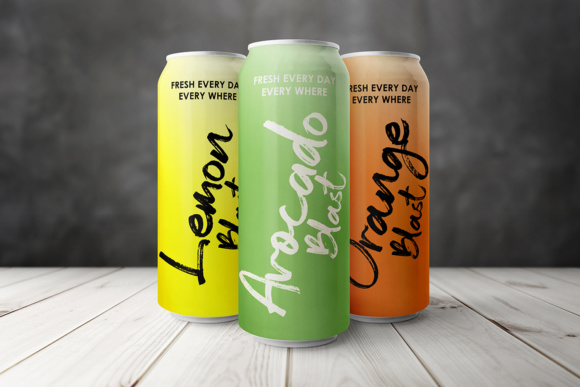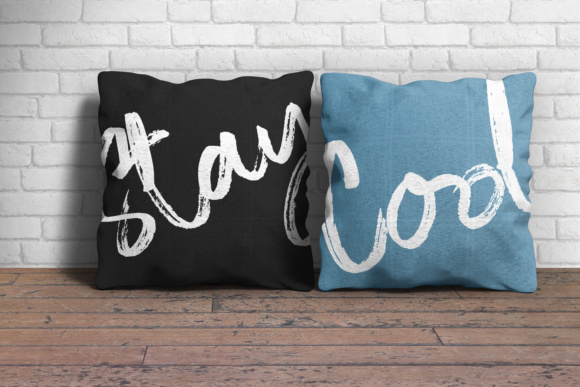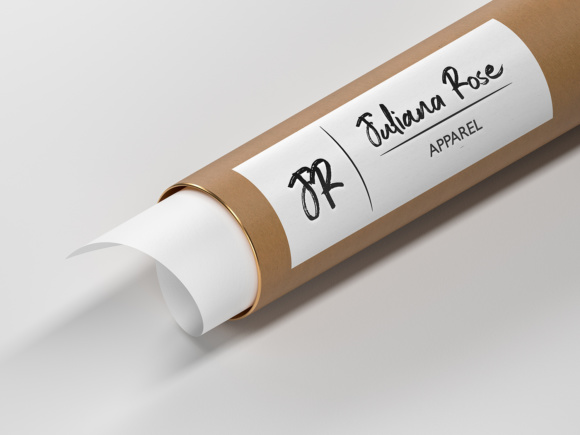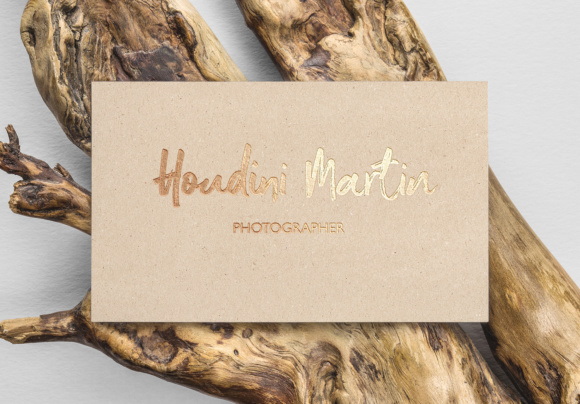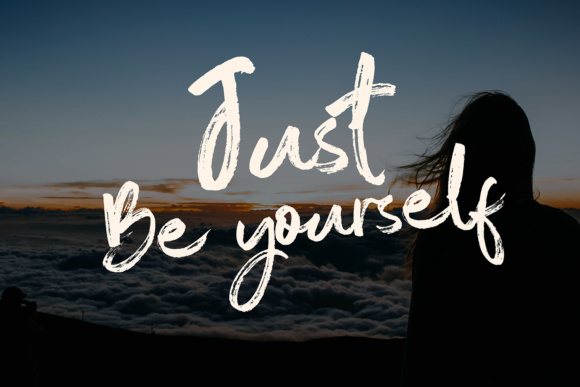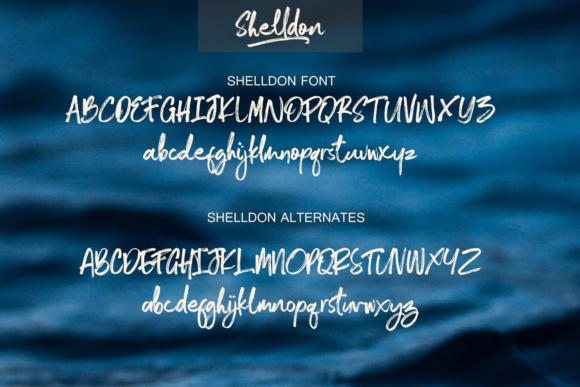
Introduction to Shelldon Font
Have you ever stared at a blank page, searching for the perfect font to bring your creative project to life? The blank page can be intimidating, but what if you had a design resource that could spark your imagination and guide you towards a unique visual identity? The Shelldon Font is a high-quality, rustic-looking handwritten font that can help you achieve that perfect look.
With its personal charm, quick dry strokes, and signature style, Shelldon Font is a valuable addition to any designer’s toolkit. Its transparent background and free download option make it an ideal choice for creative projects where flexibility is key. Whether you’re working on a branding campaign, a blog post, or a social media graphic, Shelldon Font can help you add a touch of personality to your design.
But what really sets Shelldon Font apart is its versatility. With three different fonts included – Shelldon, Shelldon Alternate, and Shelldon Swash – you have a range of options to experiment with and find the perfect fit for your project. So why settle for a generic font when you can have a unique and high-quality design resource like Shelldon Font?
Key Features of Shelldon Font
- Unique, hand-drawn design suitable for creative projects
- Includes transparent background option for seamless integration into designs
- Resolution-independent, making it ideal for various screen resolutions and print media
Honest Review: Shelldon Font
I recently had the chance to experiment with the Shelldon Font, and I must say it’s a great addition to any designer’s arsenal. This font is perfect for a creative project that requires a unique touch.
- ✨ High-quality design: The Shelldon Font boasts a clean and modern aesthetic that’s perfect for a variety of design projects.
- ✨ Transparent background: This feature allows designers to easily use the font over any background, giving it a seamless integration.
- ⚠️ Limited character set: While the font itself is high-quality, the character set is somewhat limited, which may not be suitable for projects that require extensive text.
Overall, I’m impressed with the Shelldon Font. Its unique design and transparent background make it a great resource for designers working on creative projects. While it may not be perfect for every project, it’s definitely worth considering for your next design endeavor.
For the most out of Shelldon Font, use it for creative projects that require a unique and eye-catching design. Some common use cases include designing social media graphics, creating presentations, or making business cards. To get the most out of it, experiment with different font sizes and styles, and combine it with high-quality images and transparent backgrounds.